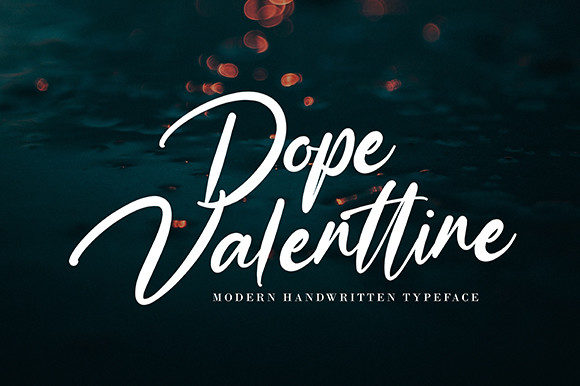
Behold, the Dope Valenttine font, a breathtaking script font that exudes an air of enchantment and sophistication. Step into a world of boundless creativity and let your imagination soar as you explore the endless possibilities that await.
Crafted by the visionary minds of Pineungtype and Missinklab, Dope Valenttine is a testament to their artistry and passion for typography. Each stroke, each curve, each flourish is meticulously designed to evoke a sense of timeless elegance.
Indulge in the captivating charm of Dope Valenttine's handwritten style. Its playful and carefree nature lends a touch of whimsy to your designs, while maintaining a firm hold on refinement and grace.
Unleash your inner artist and embrace the versatility of Dope Valenttine. Whether you're conjuring invitations that whisper of romance, crafting logos that exude personality, or designing social media posts that captivate your audience, Dope Valenttine is your steadfast companion.
Experience the transformative power of Dope Valenttine as it elevates your designs to unprecedented heights. Its innate beauty and undeniable charisma will leave an indelible mark on your audience, ensuring that your messages never fail to resonate.
Dive into the world of Dope Valenttine and ignite the passion within you. Let your creativity flourish and your designs take flight. The possibilities are endless – all it takes is one stroke of genius to unlock a universe of captivating artistry.